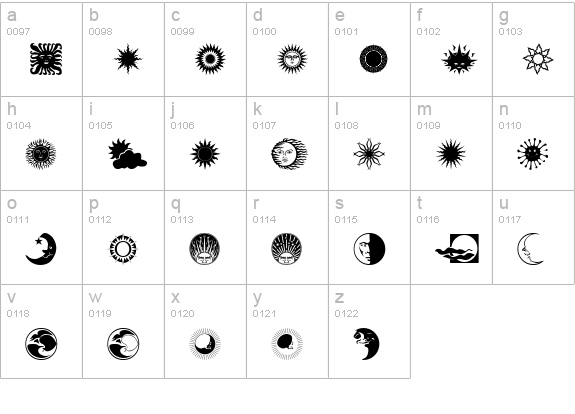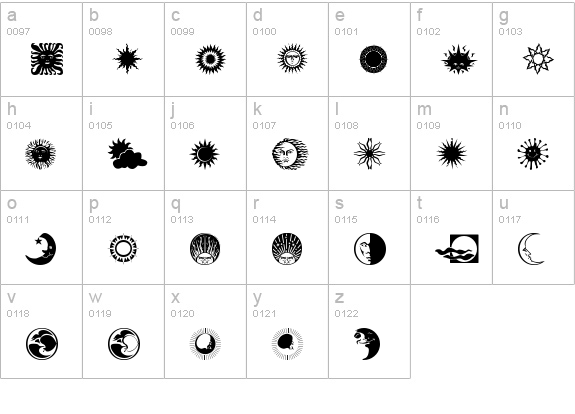
Sun n Moon Font Details
Sun n Moon font is a stunning display typeface that combines elegance with a touch of whimsy. This unique font features intricate sun and moon motifs within each character, making it perfect for projects that require a mystical or celestial theme. The Sun n Moon font is versatile and can be used for various design purposes, such as logos, branding, invitations, posters, and more. The best part is that Sun n Moon font is completely free to download at FontsMarket.com. This means you can add a touch of magic to your projects without any cost. Don't miss out on this beautiful and captivating font that will surely elevate your designs to new heights. Download Sun n Moon font today and let your creativity shine bright like the sun and moon.